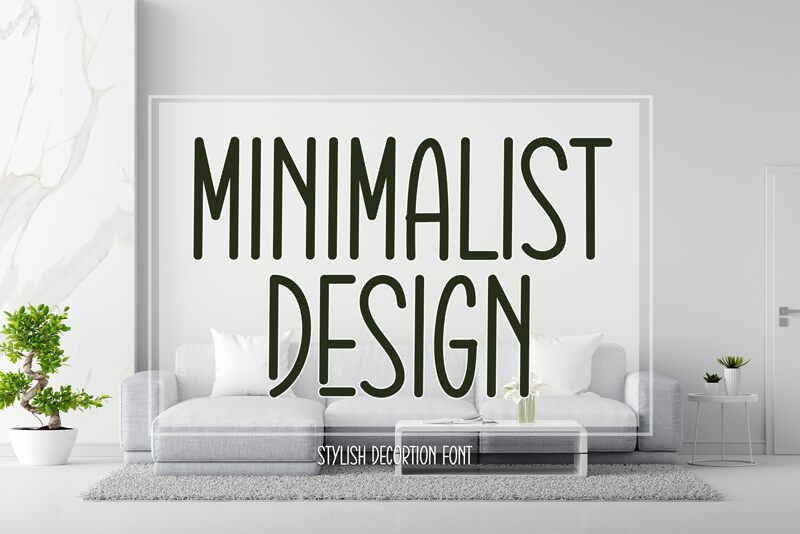
Minimalist Design
Minimalist Design font by Creatype Designer embodies a condensed and narrow handwritten style, blending an artistic flair with a modern aesthetic. The font brings a handcrafted feel to its elongated design, making it perfect for contemporary applications in creative branding and graphic design enhancing artistic projects.
Use this free handwritten font in designing logotypes, posters, invitation cards, greeting cards, stickers, social media posts/quotes/captions, book covers and layouts. Other uses also include brochure designs, stationery designs of all sorts (letters/cards/envelopes), letterhead designs etc.